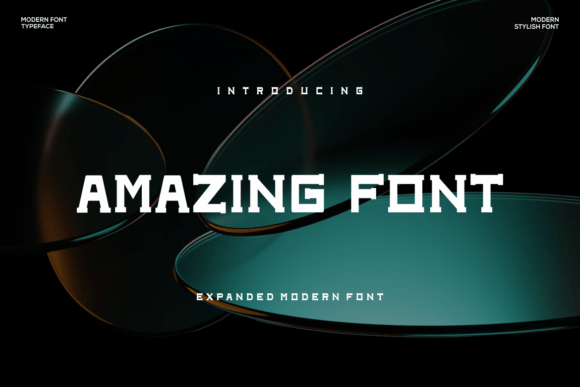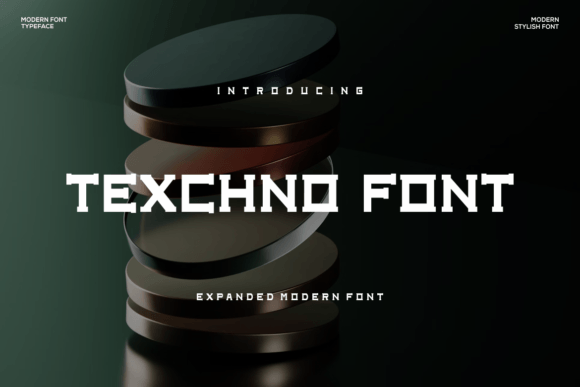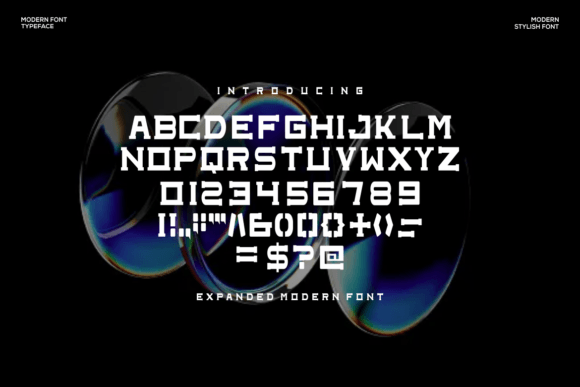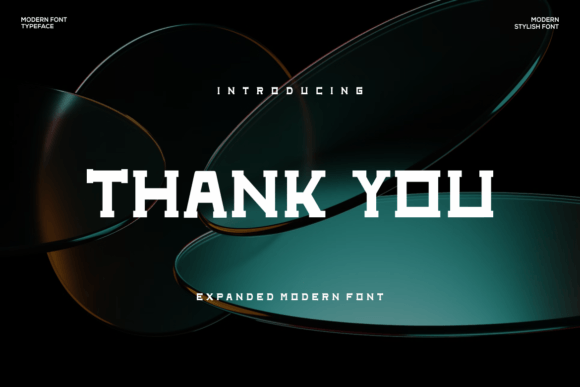
Introducing Brohis Font: The Modern Display Font for Creative Projects
Are you tired of using the same old fonts for your branding projects? Look no further! We’re excited to introduce Brohis Font, a bold and authentic display font that’s perfect for making a statement. With its modern design and versatility, Brohis Font is ideal for a wide range of applications, from logos and t-shirt printing to creative products and more.
What Makes Brohis Font Stand Out?
Brohis Font is an extraordinary font that’s designed to make your designs stand out from the crowd. Its bold and authentic style gives it a unique edge that’s sure to grab attention. Whether you’re working on a branding project, creating merchandise, or designing marketing materials, Brohis Font is the perfect choice.
Key Features of Brohis Font
- Bold and Authentic Design: Brohis Font features a bold and authentic design that’s perfect for making a statement.
- Versatile: This font is versatile and can be used in a variety of contexts, from logos and t-shirt printing to creative products and more.
- Modern Style: Brohis Font has a modern style that’s perfect for designers and crafters who want to create fresh and contemporary designs.
- Easily Readable: Despite its bold design, Brohis Font is easily readable, making it perfect for use in a variety of applications.
Brohis Font is perfect for designers and crafters who want to add a touch of modernity to their designs. Whether you’re working on a branding project, creating merchandise, or designing marketing materials, this font is sure to impress. Its bold and authentic design makes it perfect for:
- Logos: Create a bold and memorable logo that stands out from the crowd.
- T-Shirt Printing: Design eye-catching t-shirts that make a statement.
- Creative Products: Add a touch of modernity to your creative products, such as mugs, phone cases, and more.
- Marketing Materials: Create marketing materials that grab attention and make a lasting impression.
Why Choose Brohis Font?
There are many reasons why you should choose Brohis Font for your next project. Here are just a few:
- Unique Design: Brohis Font features a unique design that’s sure to make your designs stand out.
- High-Quality: This font is of high quality, making it perfect for use in a variety of applications.
- Easily Customizable: Brohis Font is easily customizable, making it perfect for designers who want to add their own touch.
| Font Name | Brohis Font |
In conclusion, Brohis Font is a bold and authentic display font that’s perfect for making a statement. With its modern design and versatility, it’s ideal for a wide range of applications, from logos and t-shirt printing to creative products and more. Whether you’re a designer or crafter, Brohis Font is a great choice for anyone looking to add a touch of modernity to their designs. So why wait? Download Brohis Font today and start creating amazing designs!